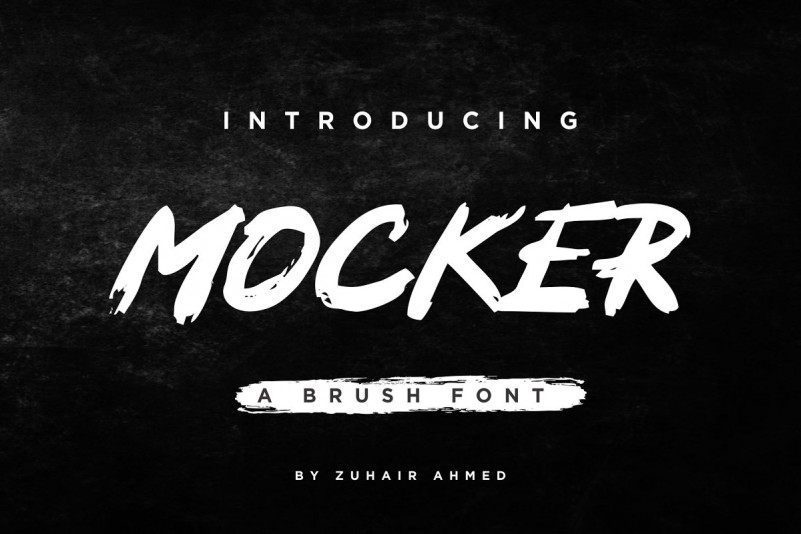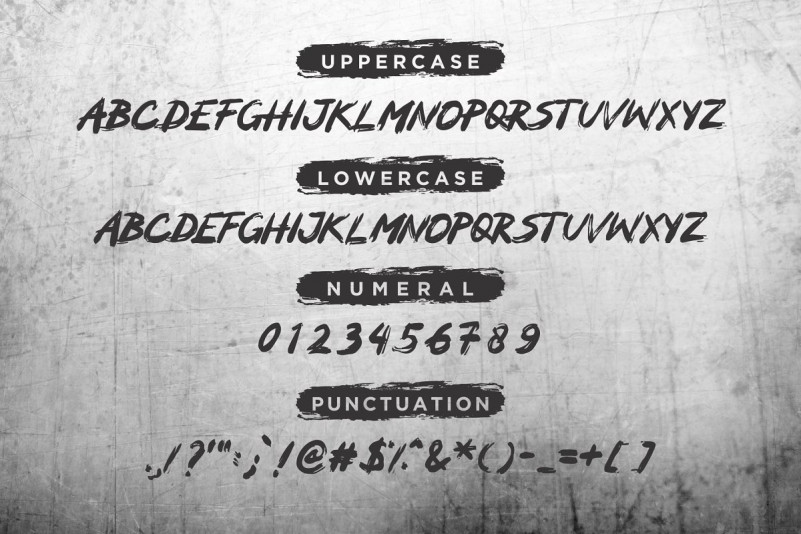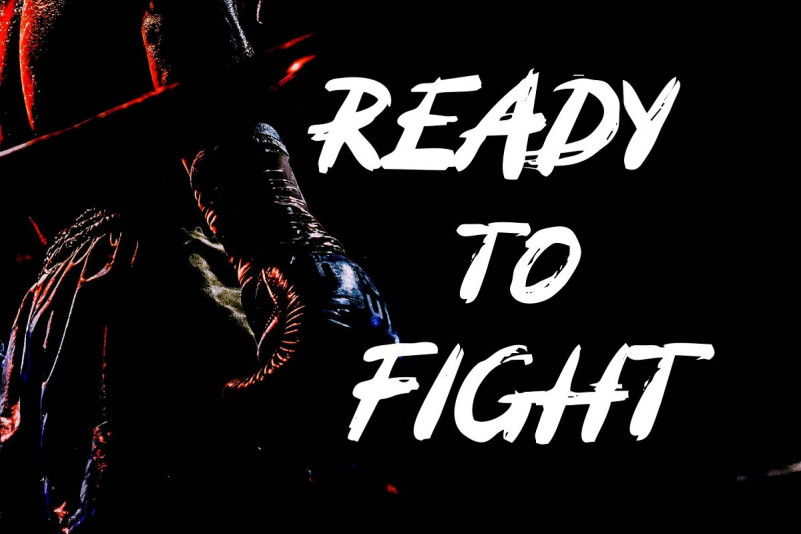
MOCKER – A Brush Font
MOCKER Is A Brush Font. It’s Emphasize Attention And Energy. MOCKER Is Guaranteed To Deliver An Energy, Fast-paced And Spirit Message; Ideal For Logos, Apparel, Quotes, Product Packaging, Or Anything Which Needs A Boost Typographic.